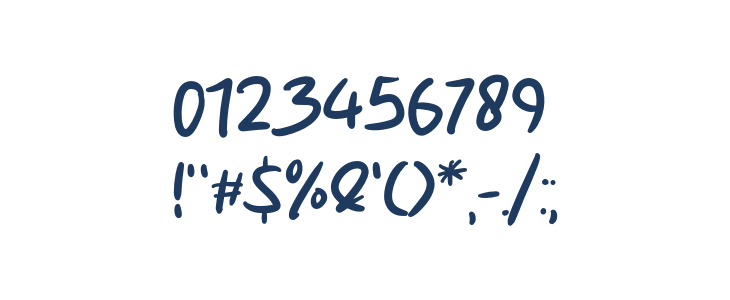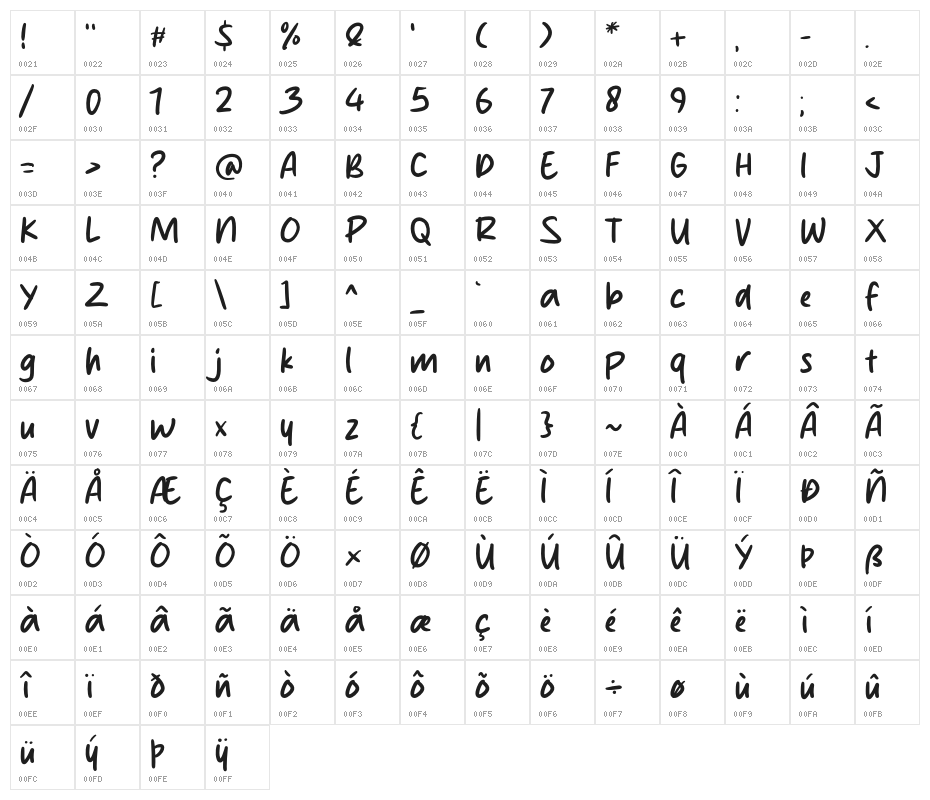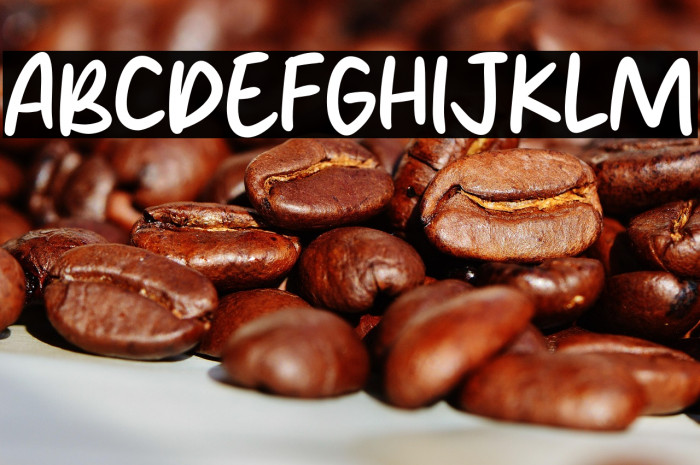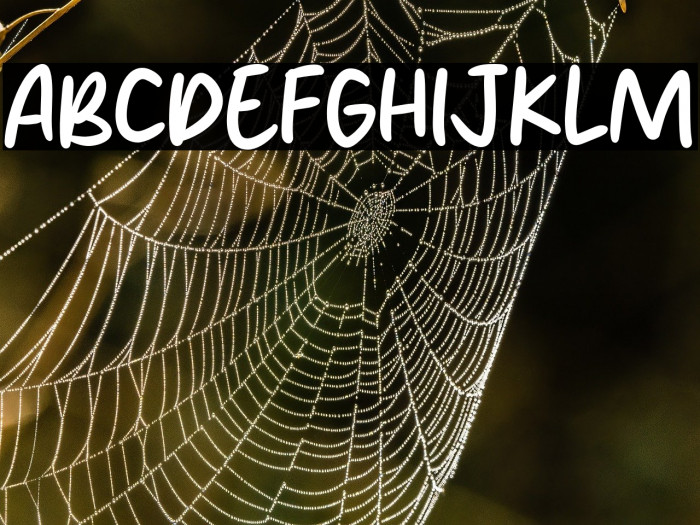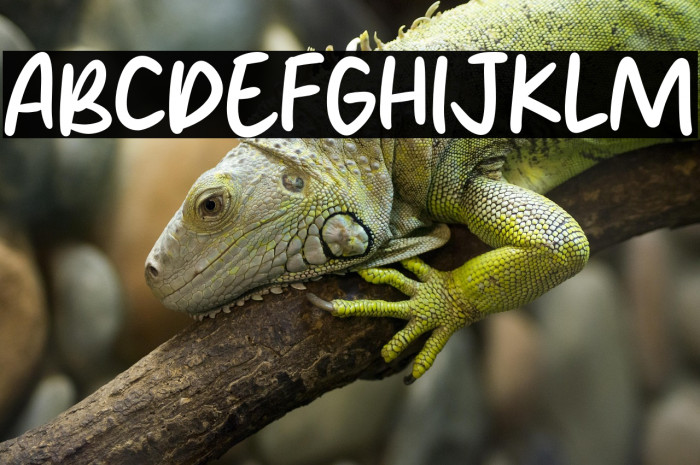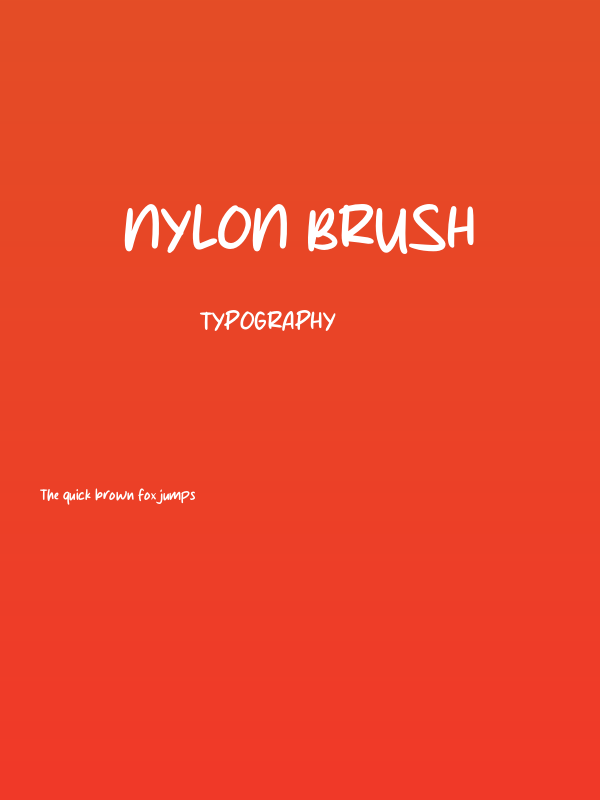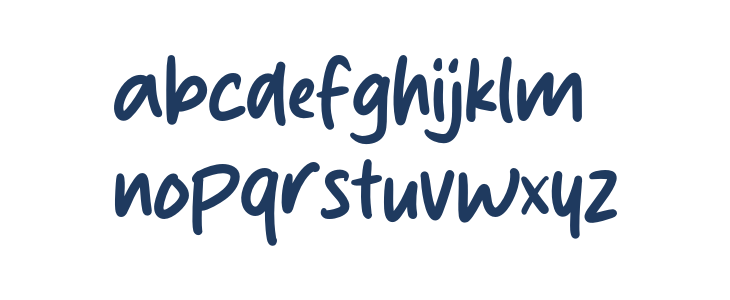
Nylon Brush Font
Nylon Brush Description
This font exudes a playful and energetic vibe, characterized by its brush-like strokes that give it a handwritten appearance. The letters are bold and slightly irregular, adding a dynamic and informal touch. The uppercase and lowercase letters maintain a consistent style, with rounded edges and a flowing form that mimics natural handwriting. The numbers and special characters follow the same aesthetic, ensuring a cohesive look across all elements. This font is perfect for projects that require a personal and approachable feel.
| Proposed Projects | Ideal for greeting cards, posters, social media graphics, and branding materials that aim to convey a friendly and informal tone. |